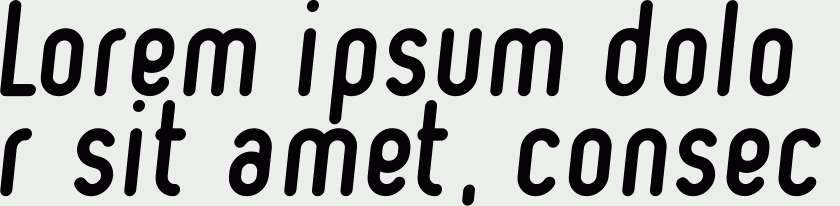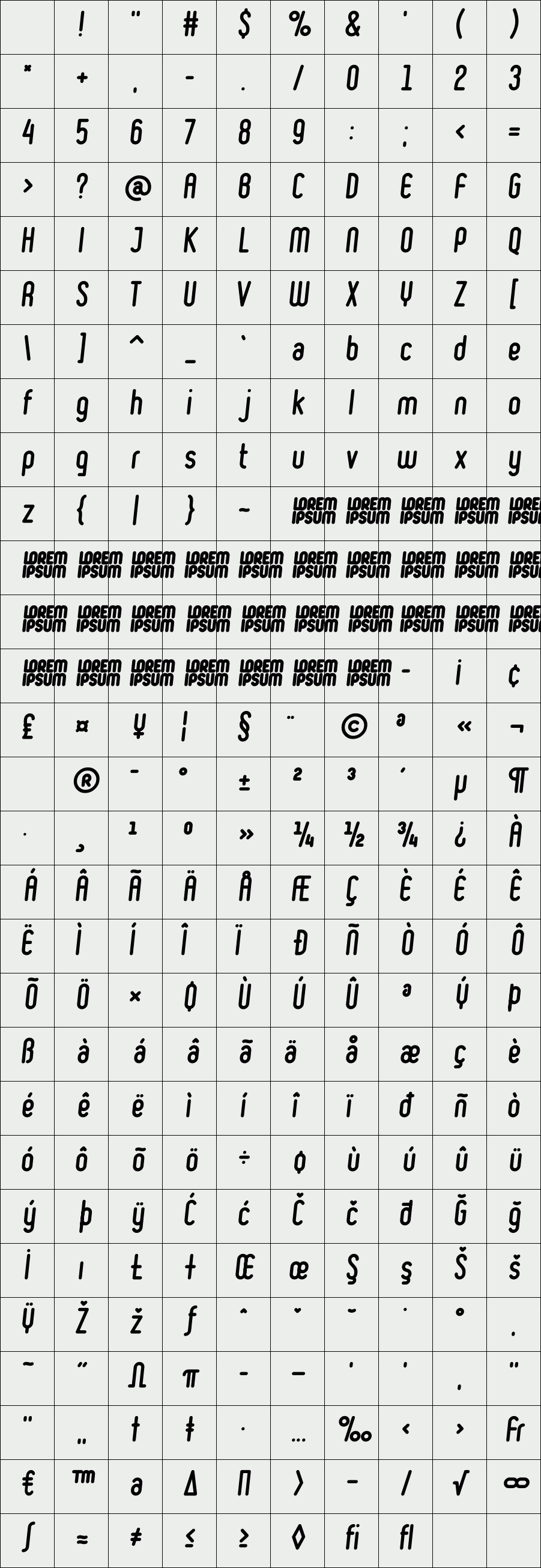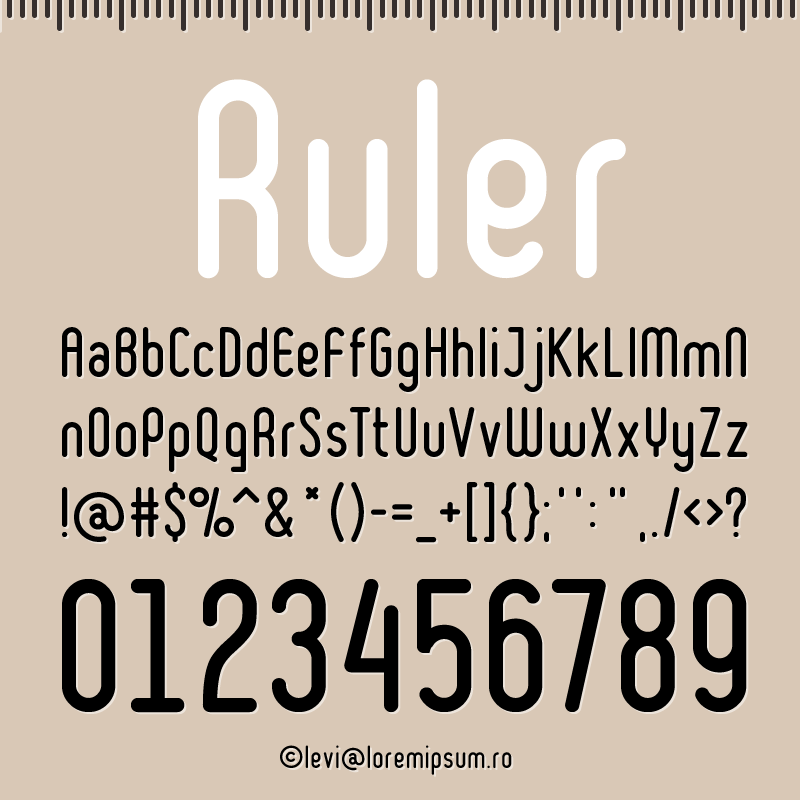
Ruler
/ Ruler Bold Italic
Font created for longer paragraphs and smaller texts, but works well also on headlines. A mix between a condensed Gothic and a typewriter, inspired by the technical fonts you find on charts, this font has a personal twist for style.
Designer: Levi Szekeres